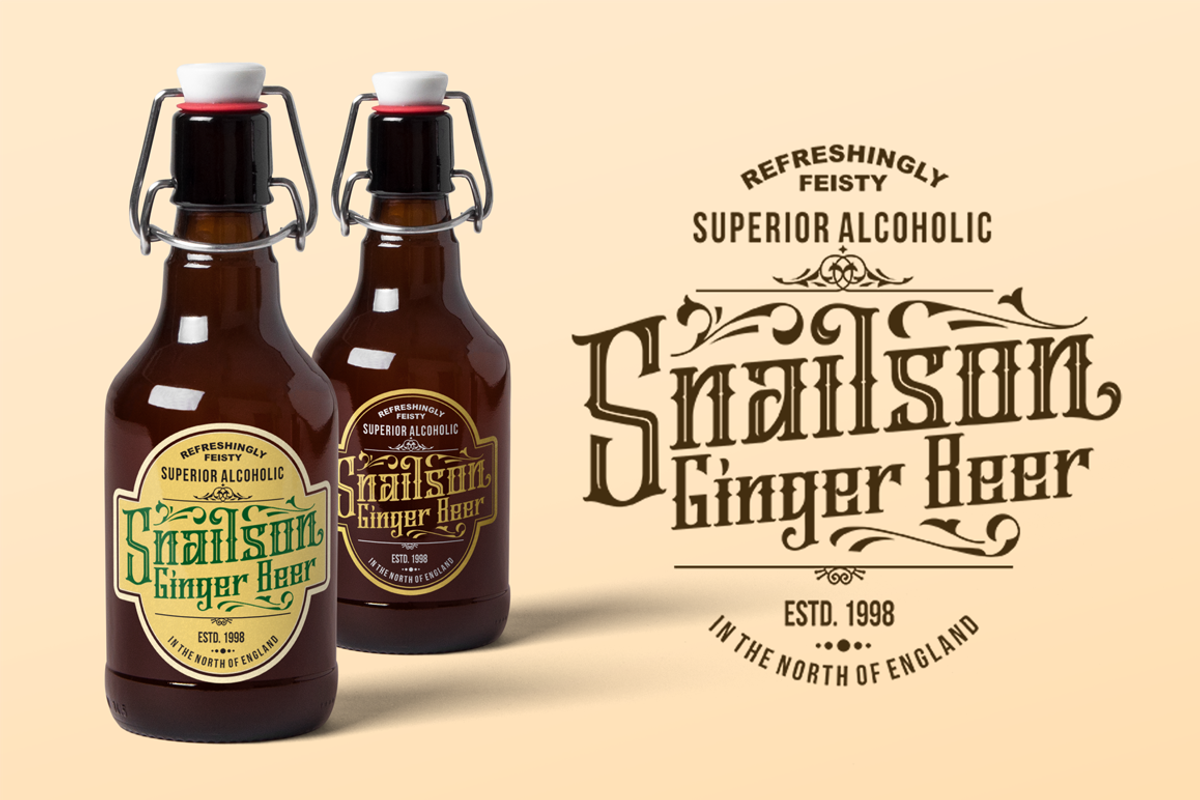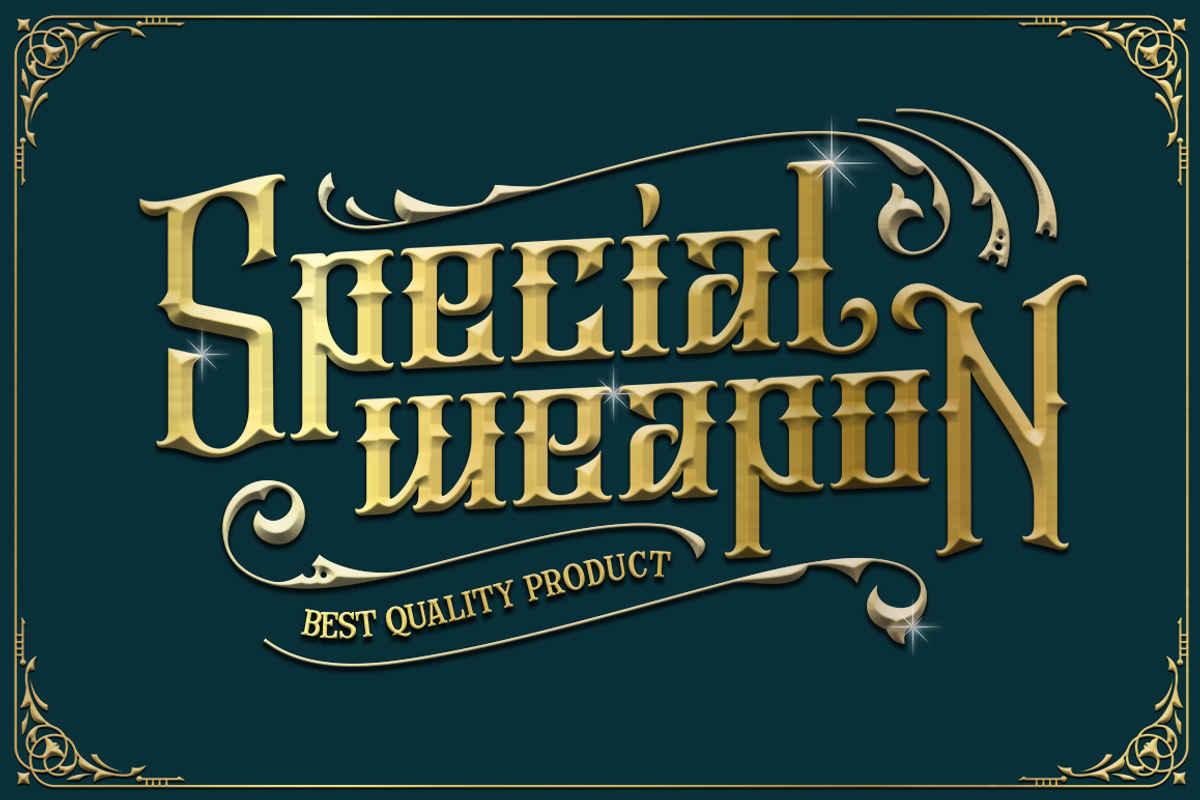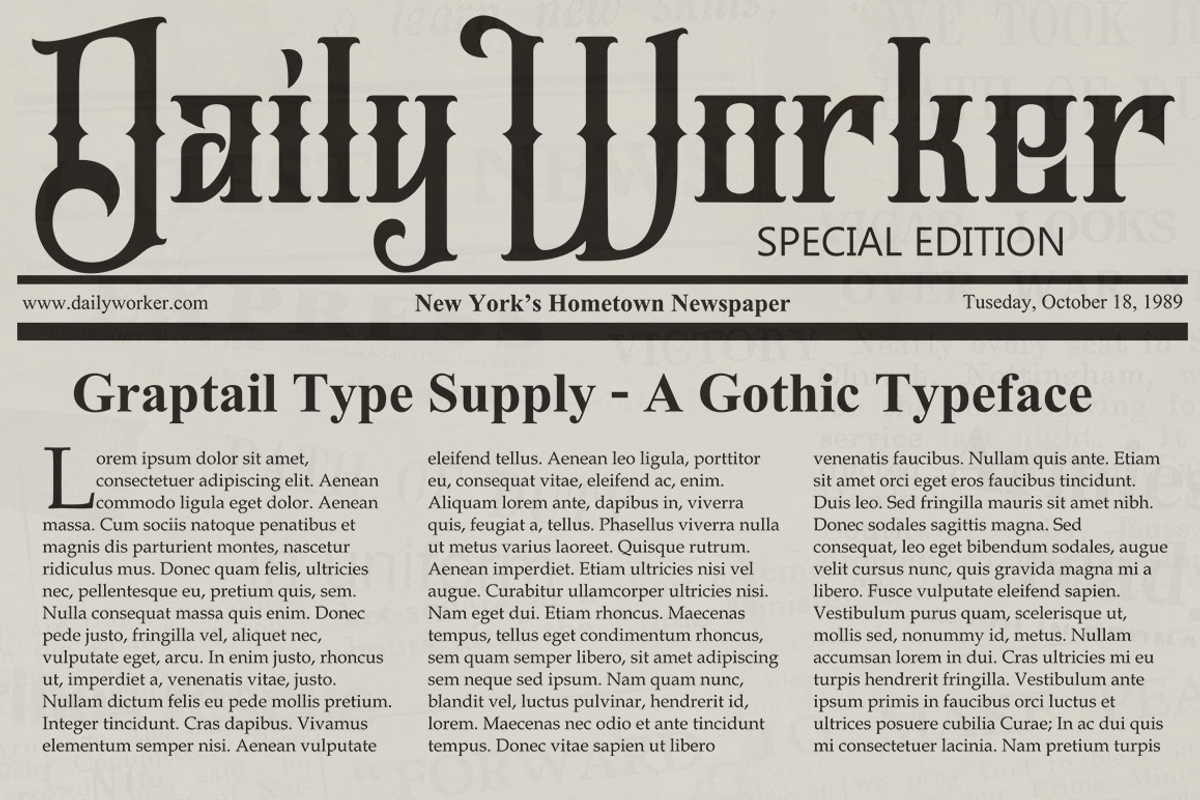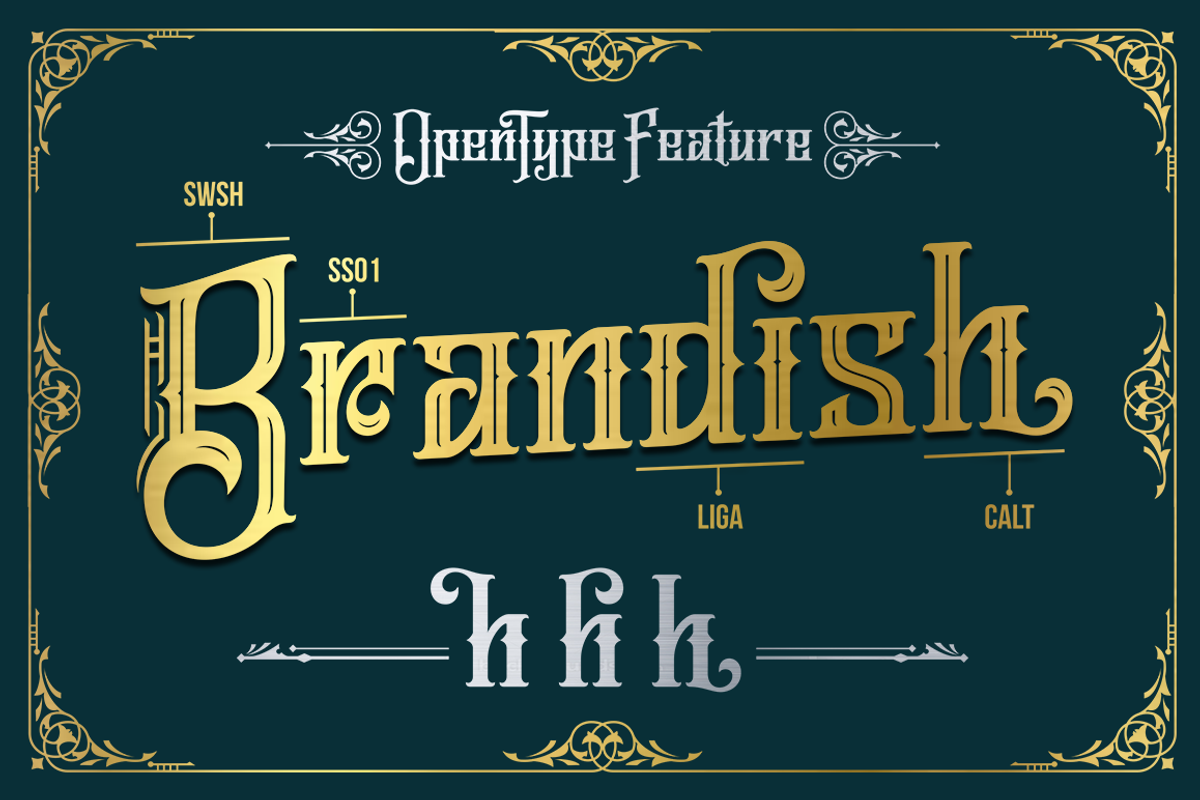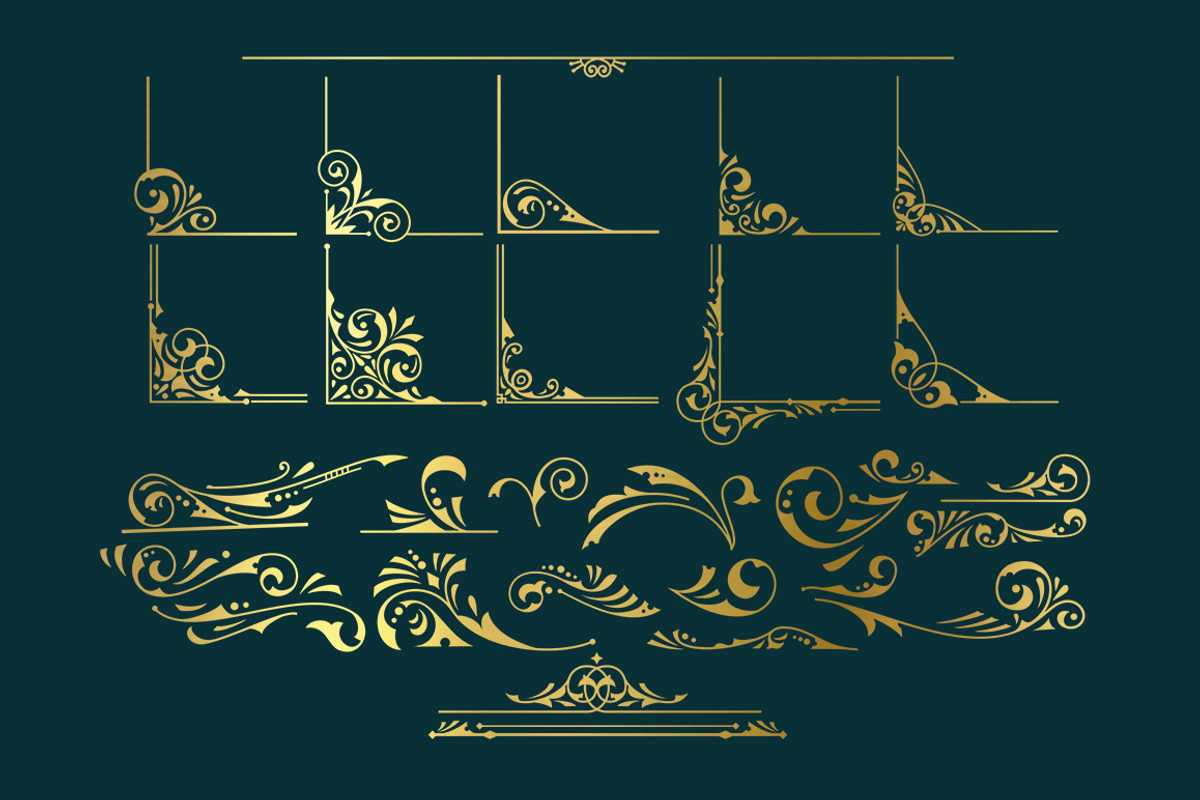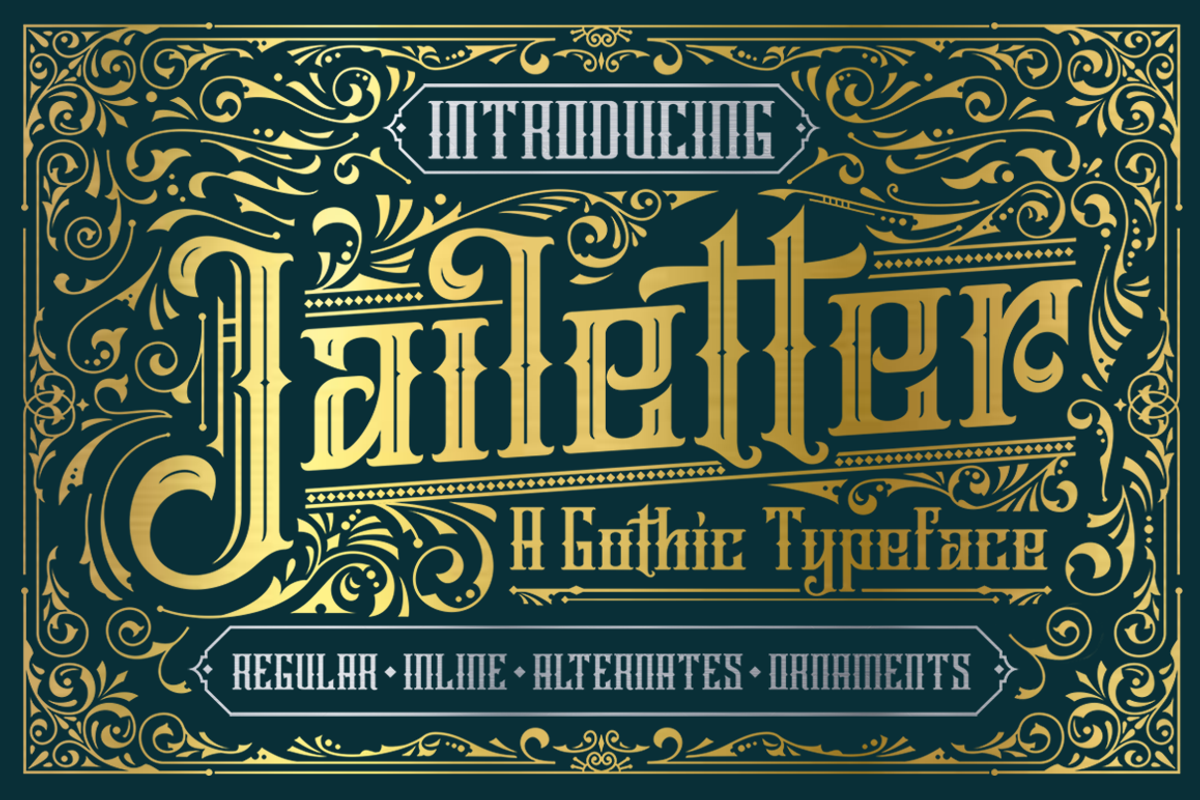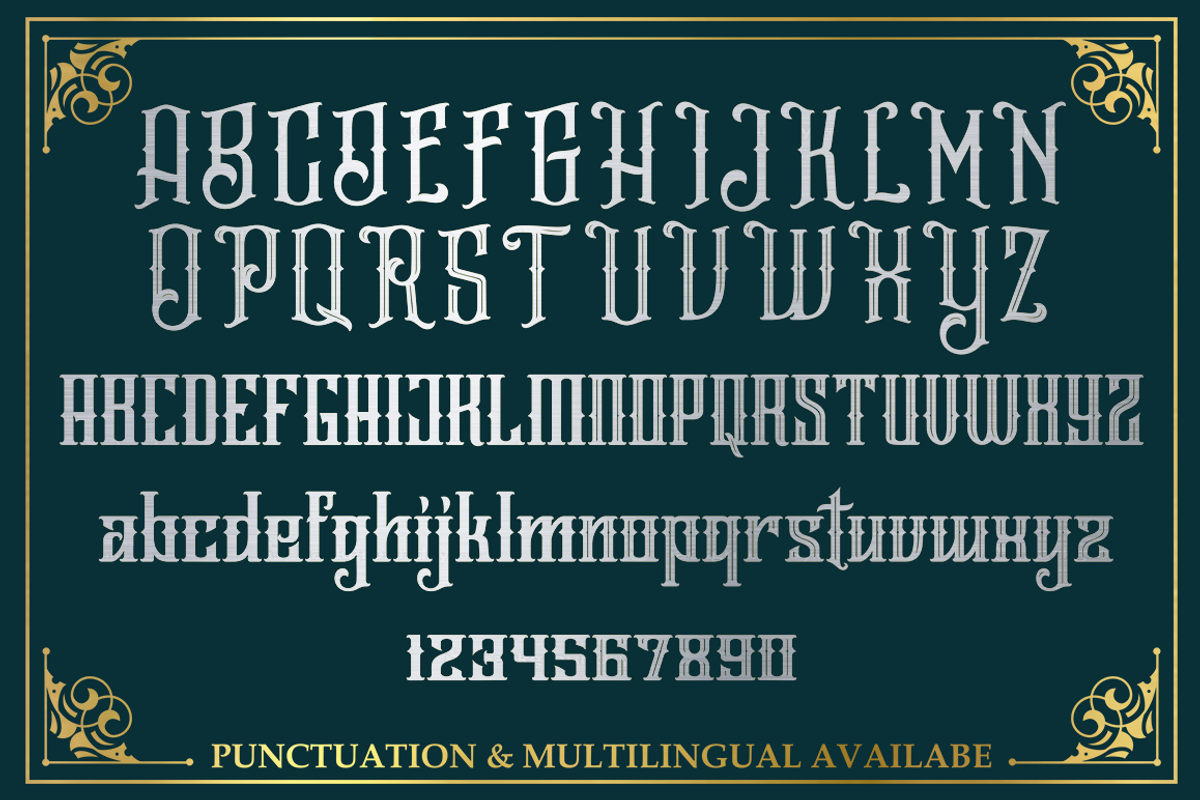
Jailetter Typeface + Extras
Jailetter is a font gothic is made by hand, inspired by classic labels. So much inspiration as you access it. All benefits you will feel when you start to create works with Jailetter fonts. What are you waiting for, the best price and best quality we give you with pride.
Jailetter comes with a regular, inline and ornament. Complete with uppercase, lowercase, numerals, punctuations and so many variations of each character include Opentype alternates, ligatures and also additional swash to let you customise your designs. Perfect to use for Logotype, Letterhead, Poster, Apparel Design, Label and etc.